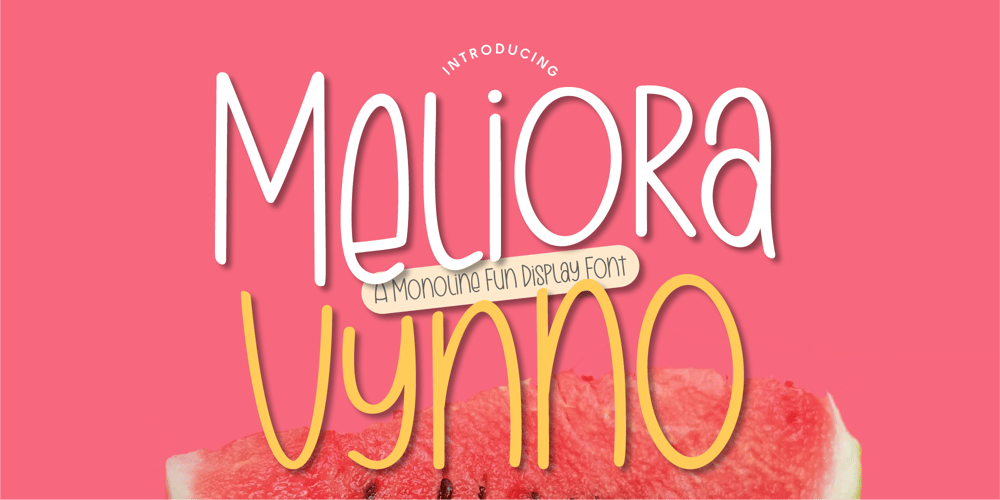
CF Meliora Vynno
CF Meliora Vynno font
CF Meliora Vynno Font Family was designed by Gilang Mei Nugraha, Frederik Aristaputra and published by Creatifont Studio. CF Meliora Vynno contains 2 styles and family package options. Meliora Vynno – A Cheerful & Playful Monoline Display FontBrighten up your designs with Meliora Vynno, a fun and quirky monoline display font that exudes joy, energy, and creativity. With its tall, wavy letterforms and hand-drawn charm, this font brings a playful personality to any project.Perfect for kids’ branding, playful packaging, greeting cards, posters, social media, and creative advertisements, Meliora Vynno makes every word feel lively and full of character. Its smooth, rounded lines create a friendly and inviting vibe, making it an excellent choice for designs that need to feel lighthearted and approachable.Why Choose Meliora Vynno?🎨 Fun & Playful: A lively font that adds personality to any design.🍉 Perfect for Kids & Lifestyle Brands: Ideal for packaging, posters, and cheerful marketing materials.🖋 Smooth & Versatile Monoline Style: Hand-drawn yet clean for easy readability.🌍 Multilingual Support: Includes numbers, symbols, and various language options.Bring a fresh and fun vibe to your designs with Meliora Vynno—Download now and make your projects burst with happiness and creativity! 🎨✨A SUMMARY OF WHAT’S INCLUDED:- Standard Character A-Z, a-z, 0-9, Punctuation & symbols- Regular and Italic- Works on PC & Mac- Simple installation- Accessible in Adobe Creative Suite (Ai, Ps, Id, etc.) even work on Microsoft Word.- PUA Encoded Characters – Fully accessible without additional design software.🌟If you come across any issues or notice anything we might have overlooked while using this product, please feel free to reach out to us. We greatly value your feedback as it helps us enhance and refine our products. Thank you!